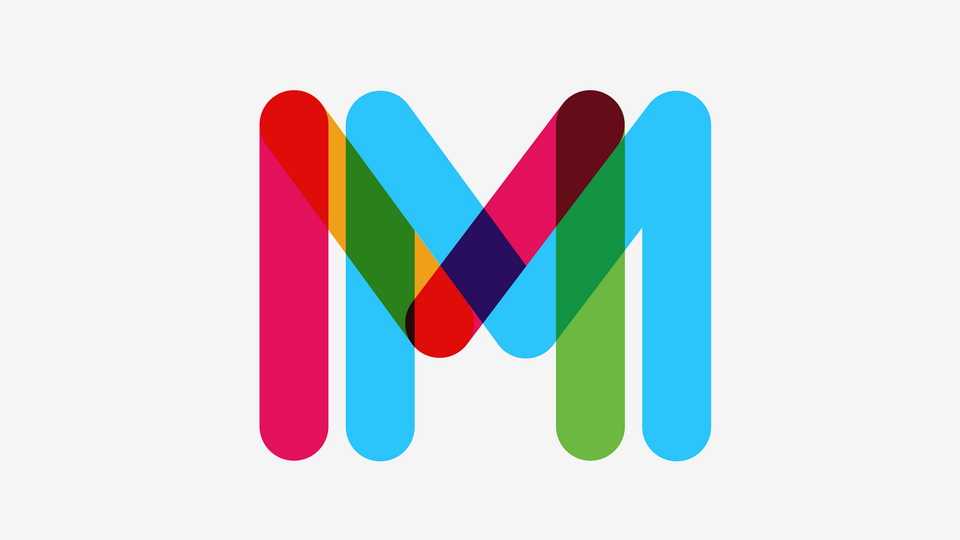
Download Multicolore Pro font, a multicolored display SVG typeface, inspired by the Pentagram’s Michael Bierut work for Mohawk Paper. Just change the main colors and make something unique.
Designer: Ivan Filipov